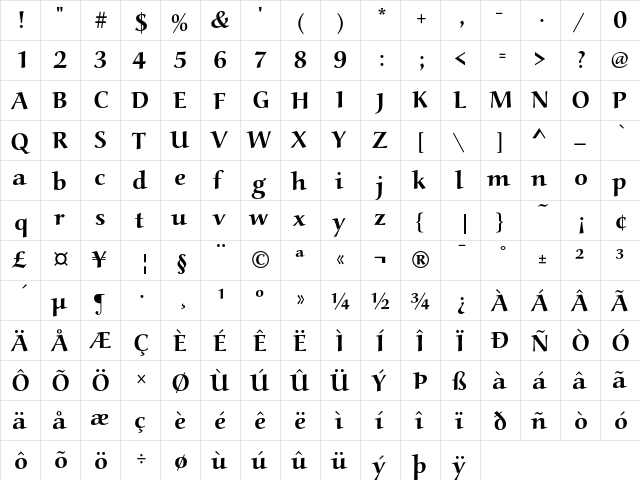
AlcuinEF Bold
Design Context for AlcuinEF Typeface
AlcuinEF is a composed and adaptable typeface that performs quietly and consistently across a wide range of design contexts. The heavy weight commands attention and anchors typographic hierarchies.